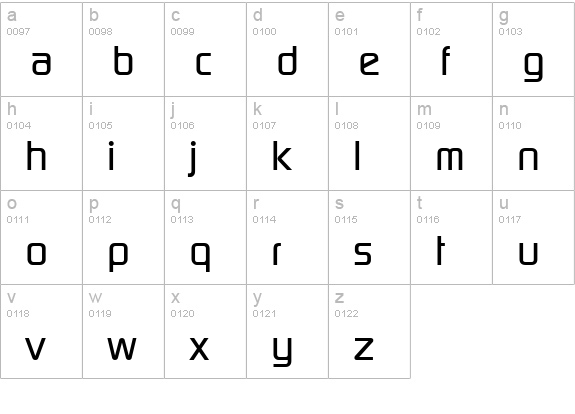
Bazouk SSi Font Details
Bazouk SSi is a modern and stylish font that exudes creativity and sophistication. With its sleek lines and elegant curves, this font is perfect for adding a touch of class to any project. Whether you're designing a logo, creating a poster, or crafting a website, Bazouk SSi is sure to make a statement. The best part? Bazouk SSi is completely free to download at FontsMarket.com. This means you can access this beautiful font without breaking the bank. Don't miss out on the opportunity to elevate your designs with Bazouk SSi - download it today and let your creativity soar!